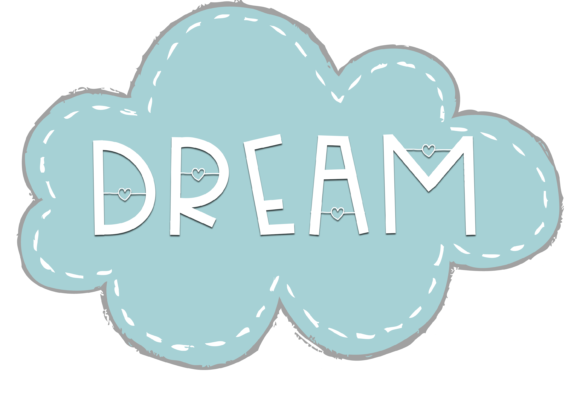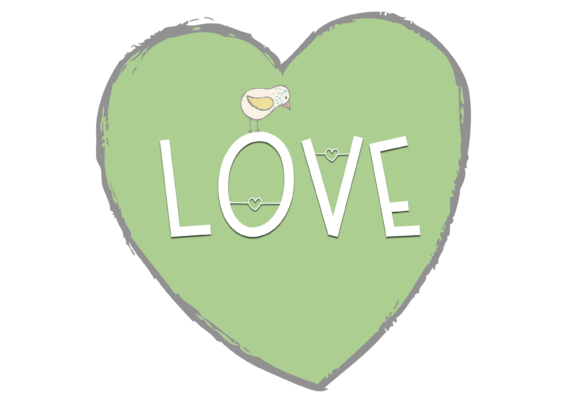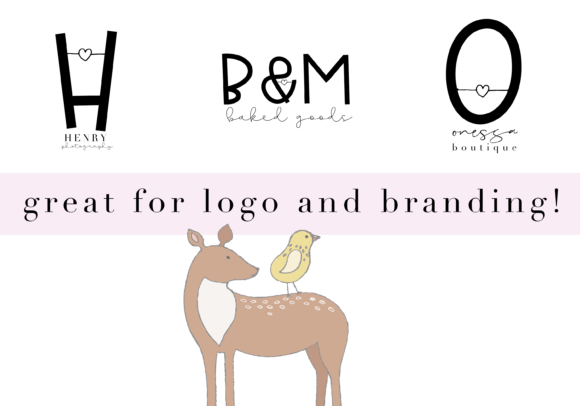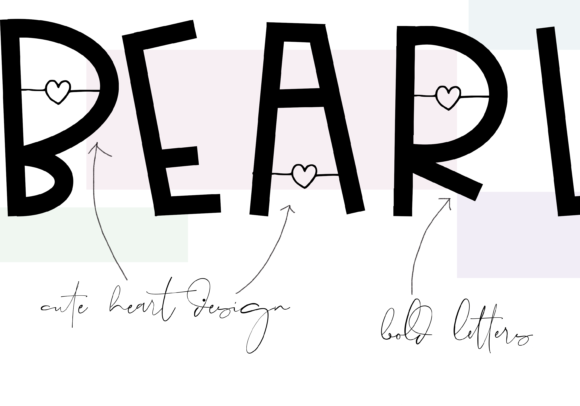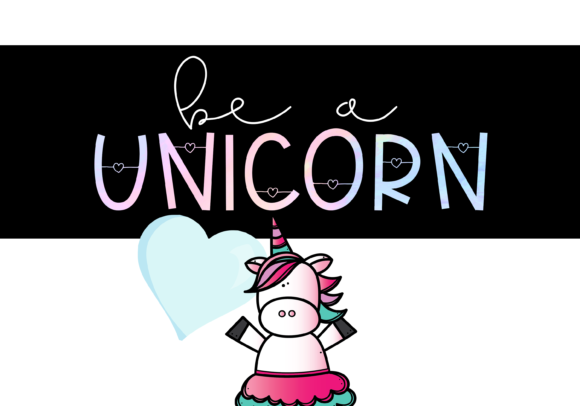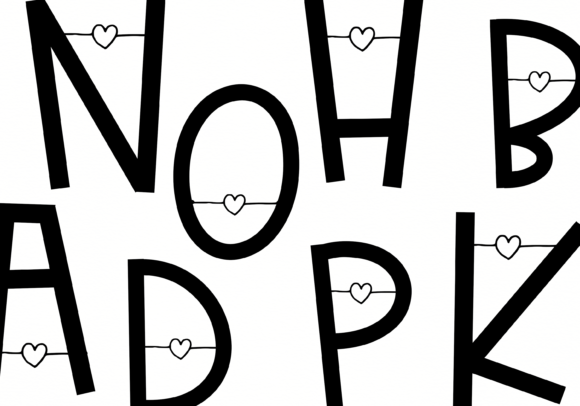
Bearly Font: Add a Charming Twist to Your Design Projects
Are you looking for a font that can add a touch of whimsy and charm to your design projects? Look no further than Bearly Font! This handmade font is designed to bring a smile to your face, with its cute heart extras and playful vibe. In this article, we’ll dive into the world of Bearly Font and explore how it can elevate your designs and make them stand out.
What is Bearly Font?
Bearly Font is a unique, handmade font that is perfect for designers and crafters who want to add a personal touch to their work. With its cute heart extras, this font is sure to capture the hearts of your audience and leave a lasting impression. Whether you’re working on a branding project, a craft project, or just want to add some personality to your digital designs, Bearly Font is the perfect choice.
Features of Bearly Font
So, what makes Bearly Font so special? Here are just a few of its key features:
- Handmade with love: Bearly Font is carefully crafted by hand, giving it a unique and personal touch.
- Cute heart extras: This font comes with adorable heart extras that can add a touch of whimsy to your designs.
- Playful vibe: Bearly Font has a playful, carefree vibe that’s perfect for designers who want to add some personality to their work.
- Versatile: This font can be used for a wide range of design projects, from branding and advertising to crafting and DIY projects.
How to Use Bearly Font
Using Bearly Font is easy! Here are a few ways you can incorporate it into your design projects:
- Branding and advertising: Use Bearly Font to create eye-catching logos, ads, and marketing materials that will stand out from the crowd.
- Crafting and DIY projects: Add a personal touch to your crafting and DIY projects, such as handmade cards, gift tags, and scrapbooking pages.
- Digital designs: Use Bearly Font to add a touch of personality to your digital designs, such as social media graphics, blog posts, and email newsletters.
Tips for Getting the Most Out of Bearly Font
Here are a few tips for getting the most out of Bearly Font:
- Experiment with different colors: Bearly Font looks great in a variety of colors, so don’t be afraid to experiment and find the perfect hue for your design.
- Mix and match with other fonts: Bearly Font pairs well with other fonts, so try mixing and matching it with different fonts to create a unique look.
- Use it sparingly: While Bearly Font is adorable, it can be overwhelming if used too much. Use it sparingly to add a touch of personality to your designs.
In conclusion, Bearly Font is a unique and charming font that can add a touch of whimsy to any design project. With its cute heart extras and playful vibe, it’s perfect for designers and crafters who want to add a personal touch to their work. Whether you’re working on a branding project, a craft project, or just want to add some personality to your digital designs, Bearly Font is the perfect choice. So why not give it a try and see how it can elevate your designs?